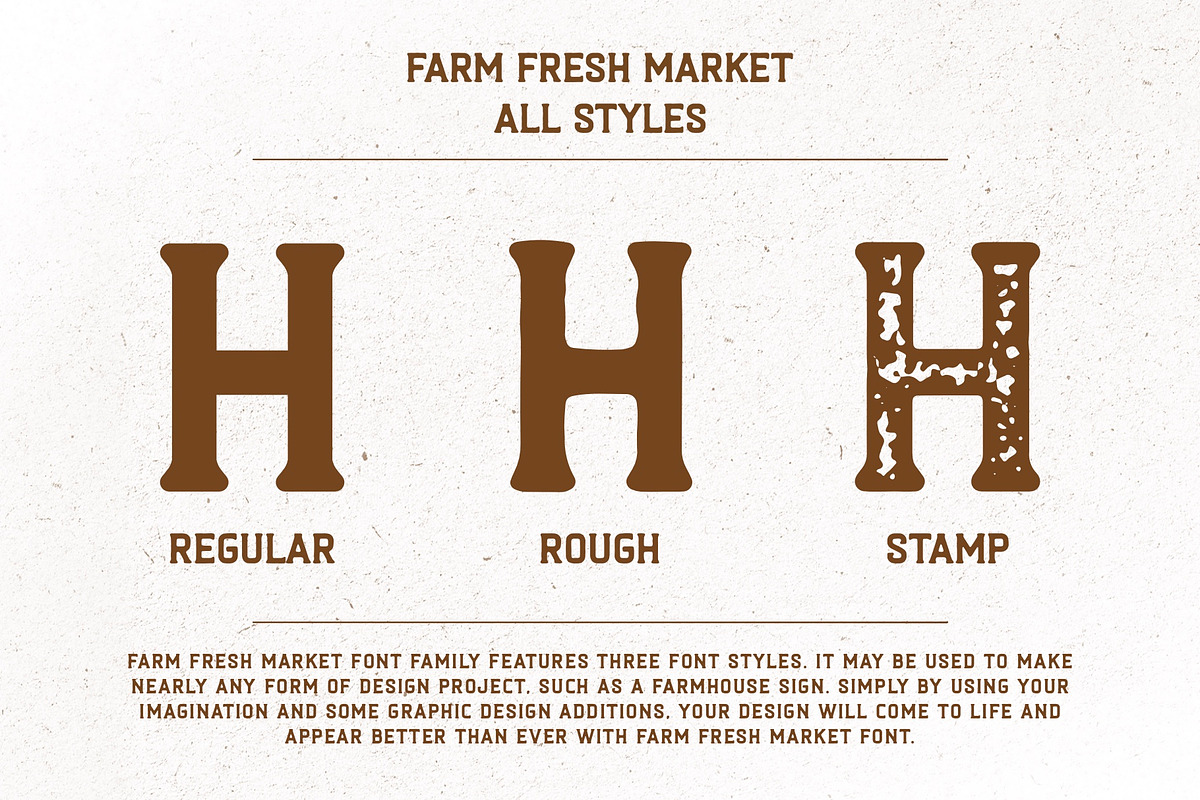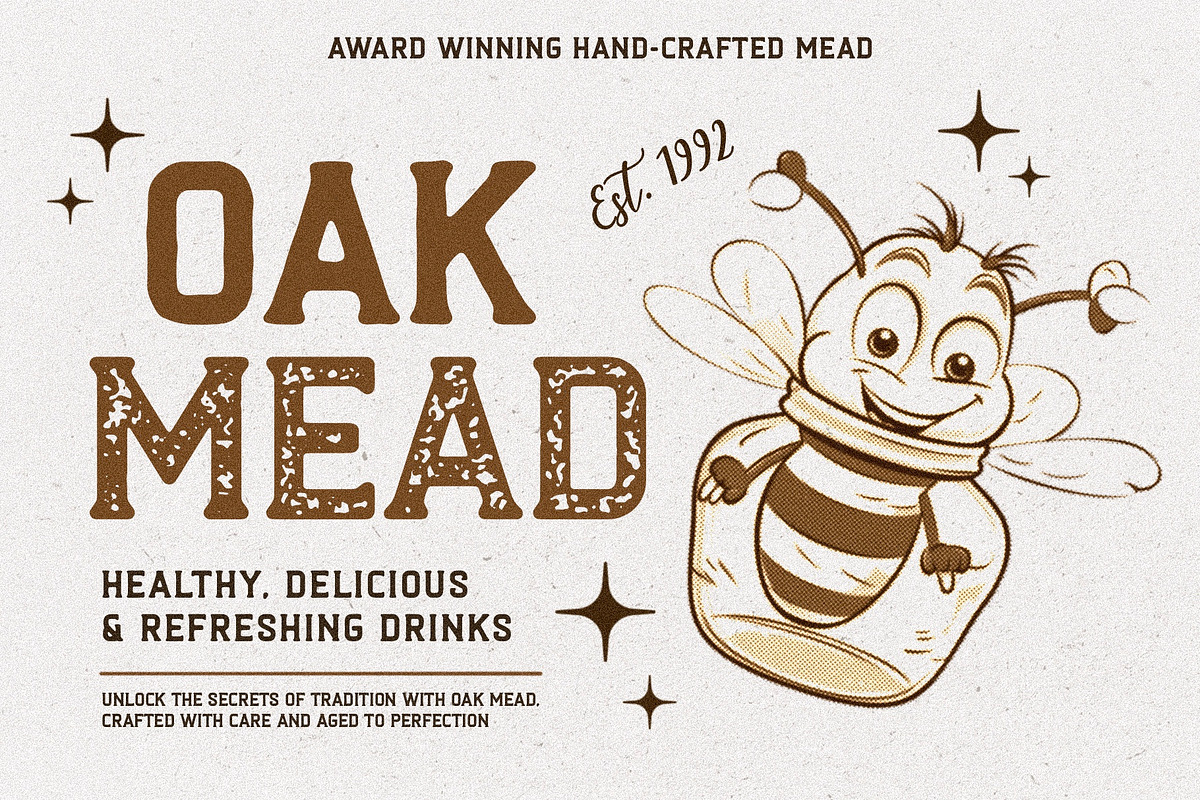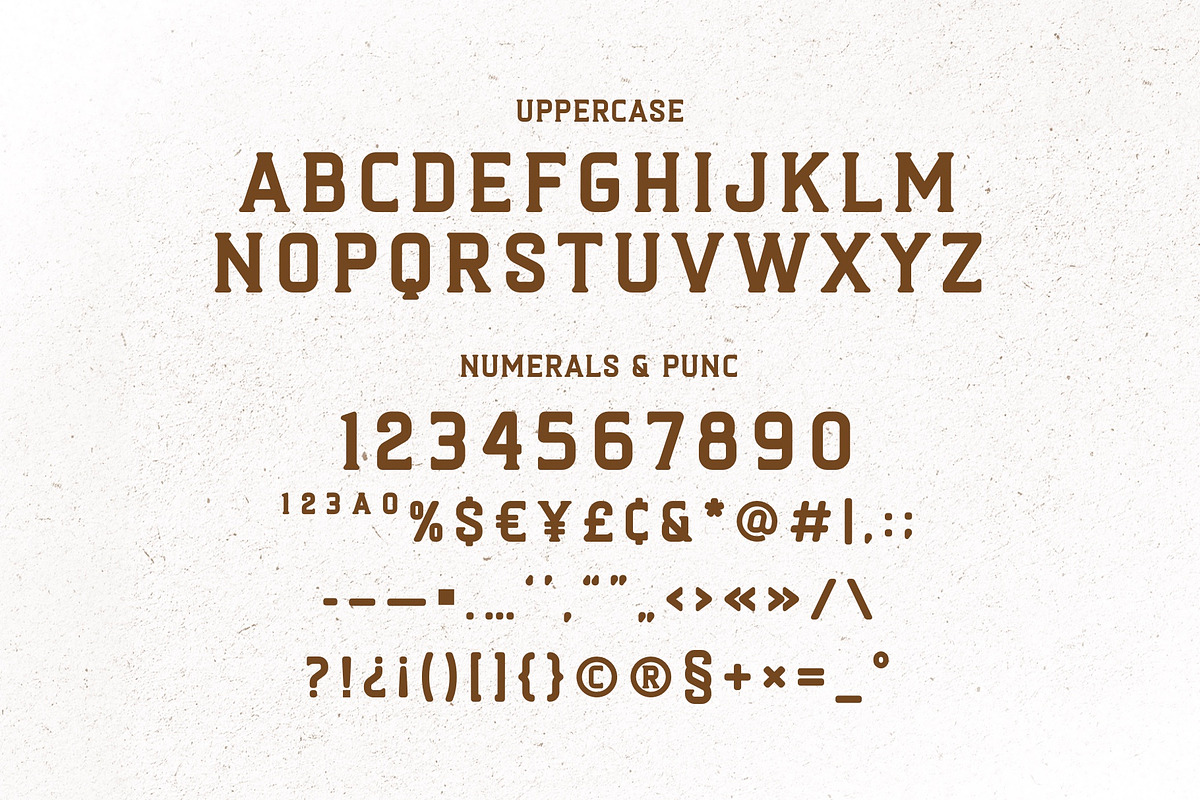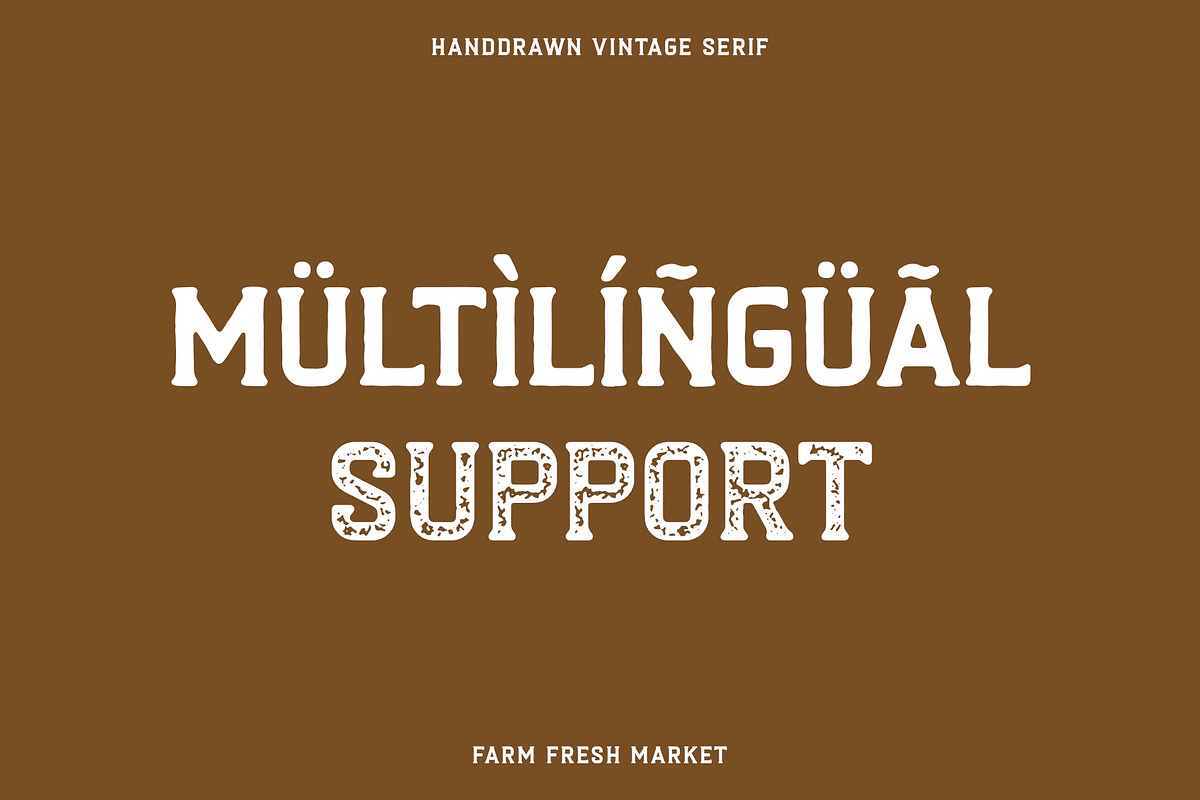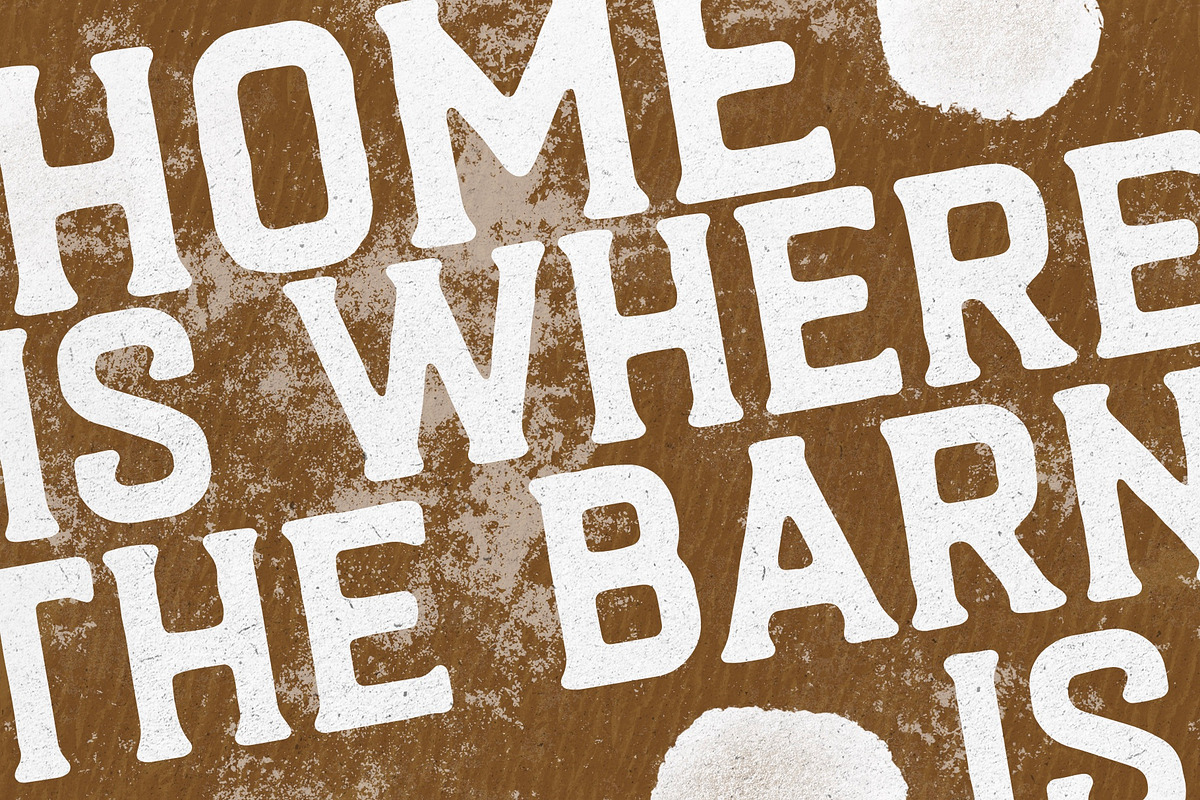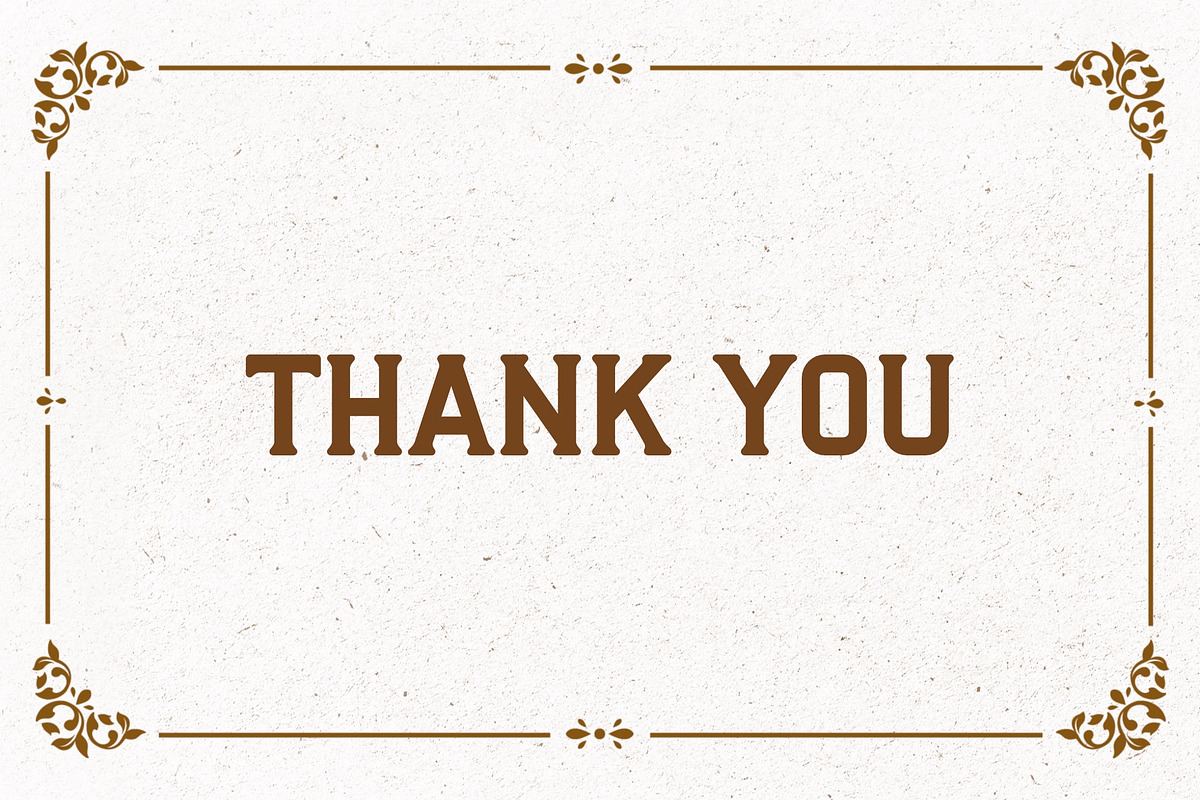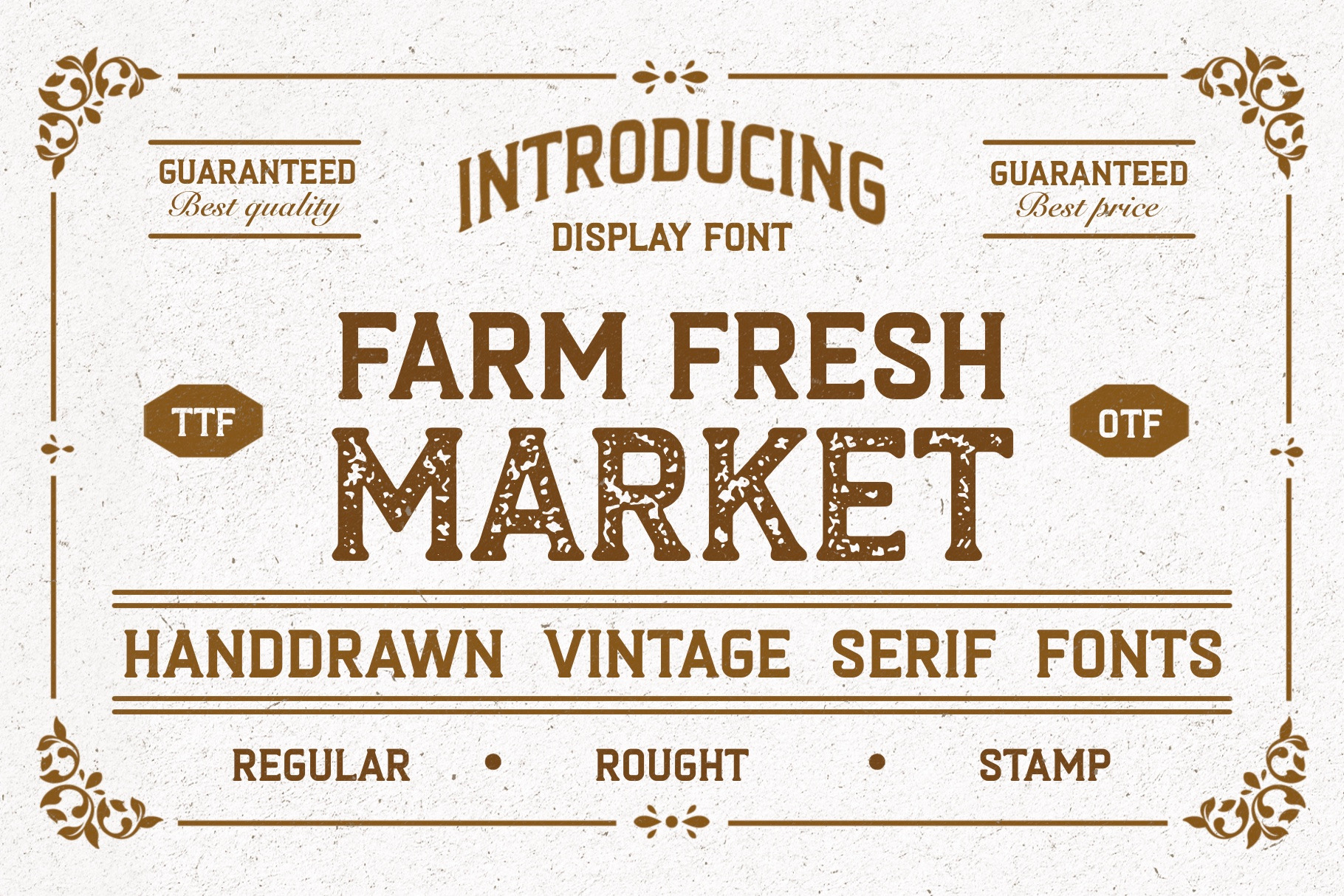
Farm Fresh Market - Sans Serif Font
Farm Fresh Market is a vintage serif farmhouse font style product that exudes a rustic and authentic feel. It is a perfect choice for designers looking to create designs with a nostalgic or vintage look and feel. The font features elegant serif lettering with a classic, old-fashioned style that is reminiscent of hand-painted signs and posters from the early 20th century. Its design is characterized by wide, bold strokes and rounded serifs, which make it easy to read even at smaller sizes.
Overall, the Farm Fresh Market font is a charming and versatile addition to any designer's toolbox, particularly for those looking to create designs that evoke a sense of history, tradition, and authenticity.